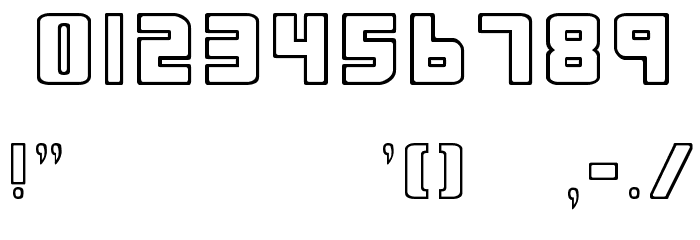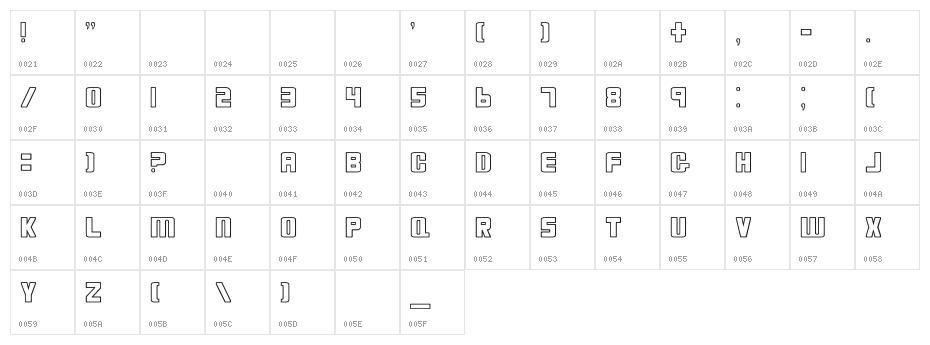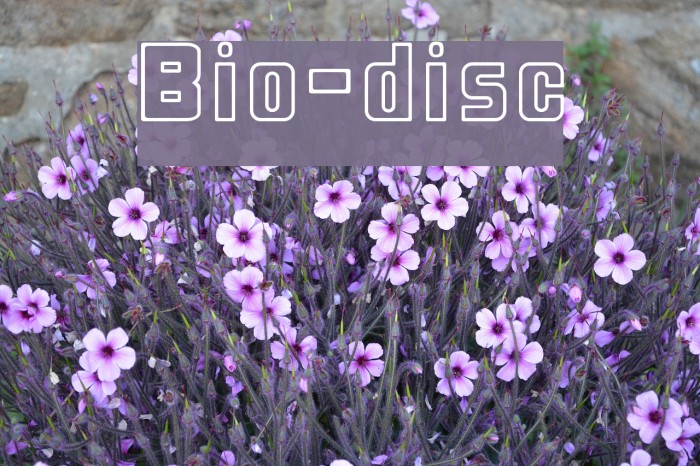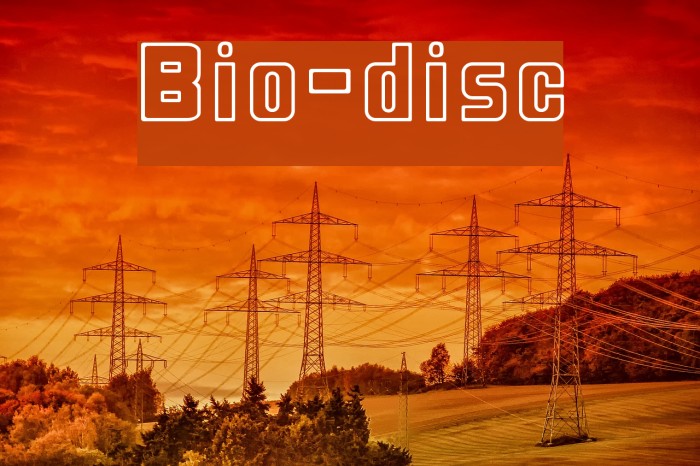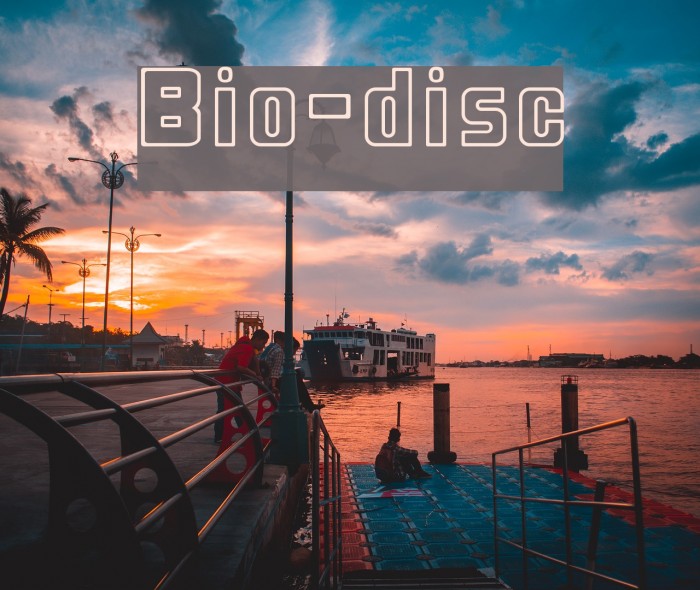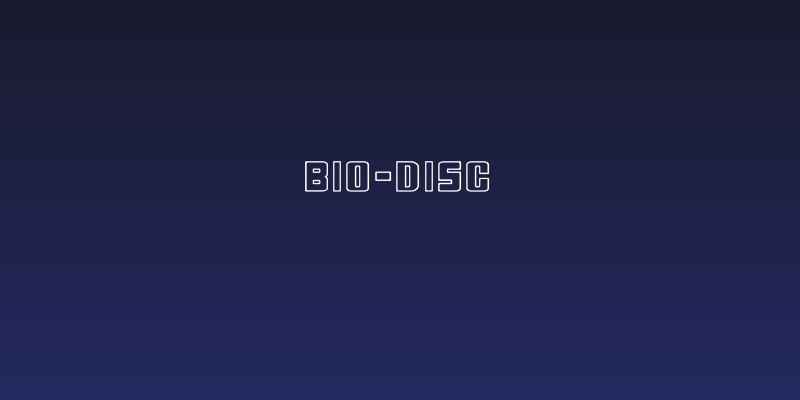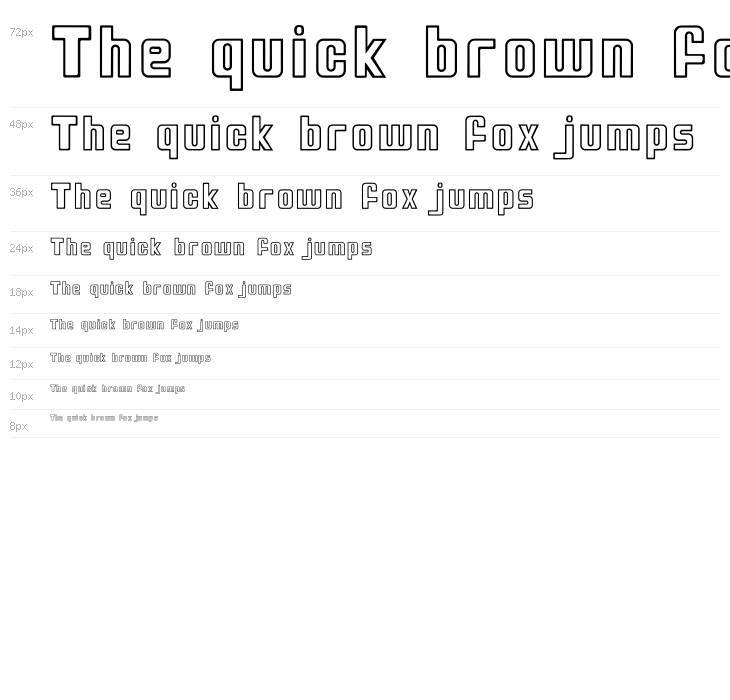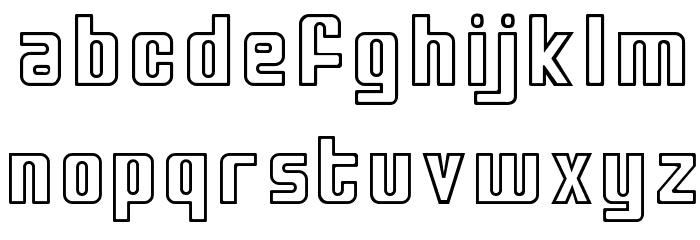
Bio-disc Font
Bio-disc Description
This font features a geometric, outlined style with a modern and futuristic appeal. Each character is constructed with consistent line thickness, creating a uniform and cohesive look. The uppercase and lowercase letters maintain a blocky, angular form, which is mirrored in the numerals and special characters. The font's open, hollow design gives it a distinctive, airy feel, making it stand out in any design context. Its clean lines and structured appearance make it suitable for projects that require a contemporary and tech-savvy aesthetic.